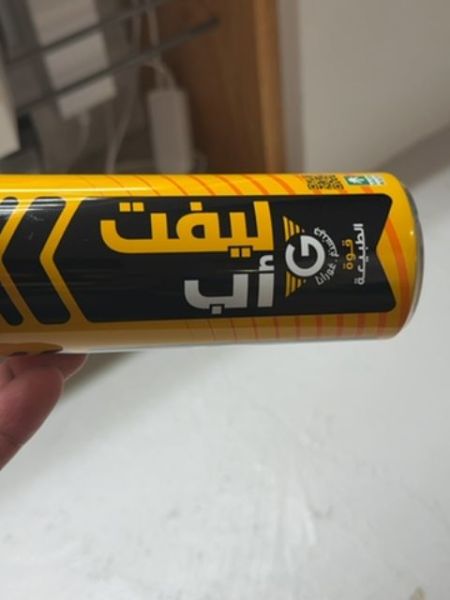
Lift Up
This is an energy drink intended to provide a quick boost of energy and alertness.
Country of Origin
Japan
Typography
The typography features bold, sans-serif Arabic lettering designed for high legibility and contrast. The font style is modern and dynamic, complementing the energetic theme of the product. Its arrangement within geometric shapes adds to the visual impact.
Packaging
The packaging features a sleek, cylindrical can design with a vibrant yellow background and bold black accents. A prominent logo and product name are centrally placed on the front, drawing attention with high contrast.
Facts
- Popular among athletes and individuals requiring quick energy boosts.
- Contains caffeine and other energy-boosting ingredients.
- Marketed as a refreshing beverage for active lifestyles.